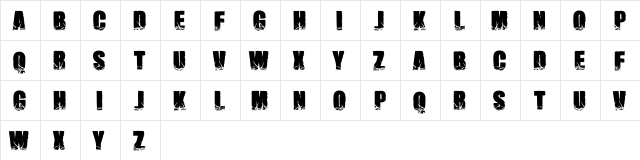
Impact Brutas Regular
| Foundry | Font Monger |
| Designer | Chris Vile |
Design Context for Impact Brutas Typeface
Impact Brutas has the bold swagger of sports branding: strong, assertive letterforms designed to dominate headlines and jerseys alike.
A natural choice for gym brands, fantasy sports, jersey lettering, and action-driven headlines.
Pro Tip: Use Impact Brutas in all-caps headlines where its athletic energy can fully express itself. Pair with a solid, simple sans for supporting text.